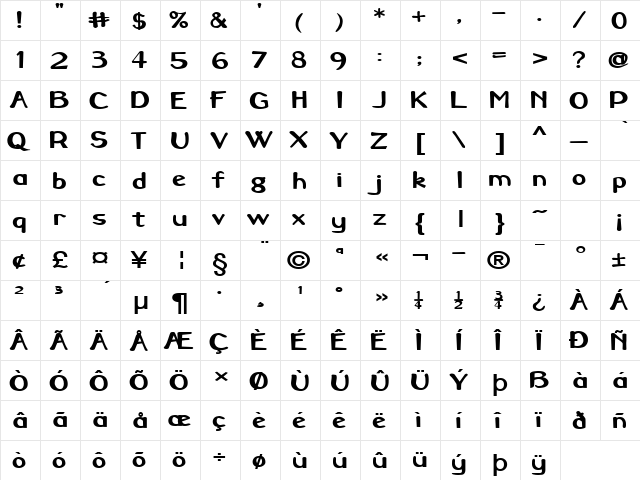
Savoy-Extended Bold Font Preview
Savoy-Extended Bold
Savoy-Extended Bold Font Details
Design Context for Savoy-Extended Typeface
Savoy-Extended takes a measured approach to typography — its balanced proportions and neutral character make it a reliable workhorse for both digital and print work. Its bold stroke weight gives it real presence on the page.